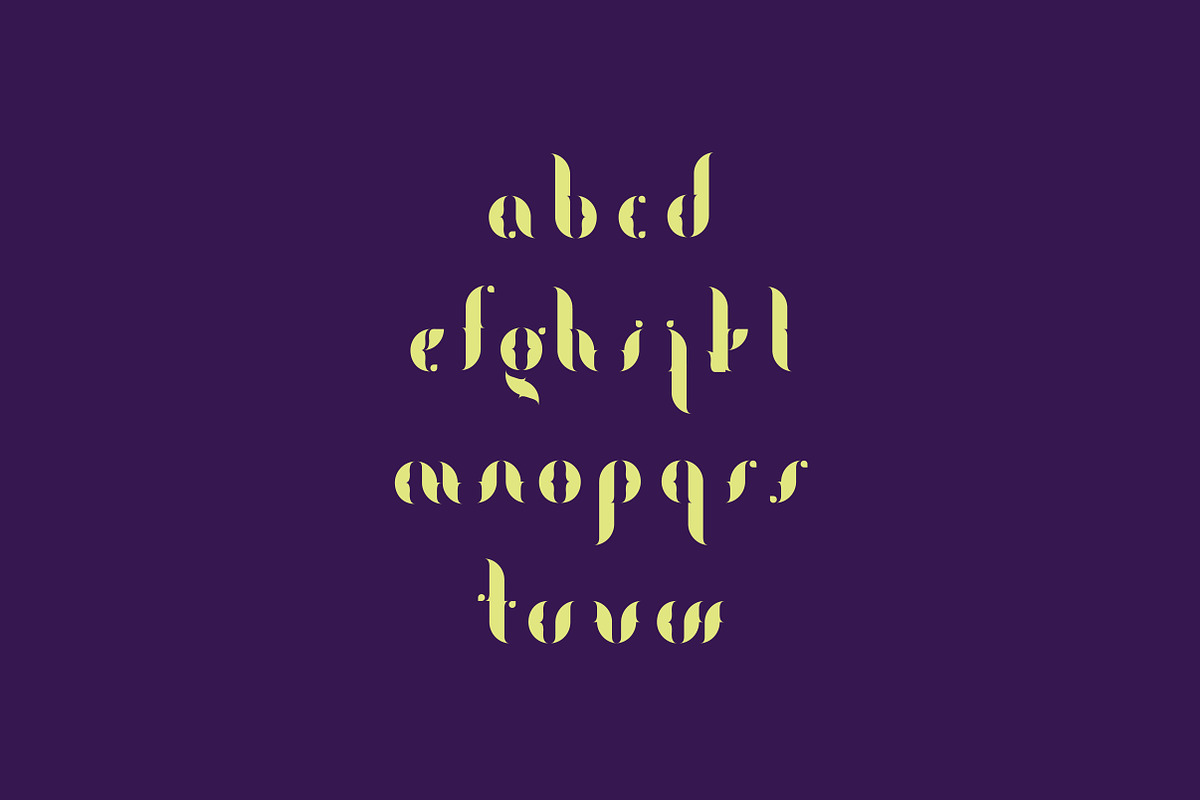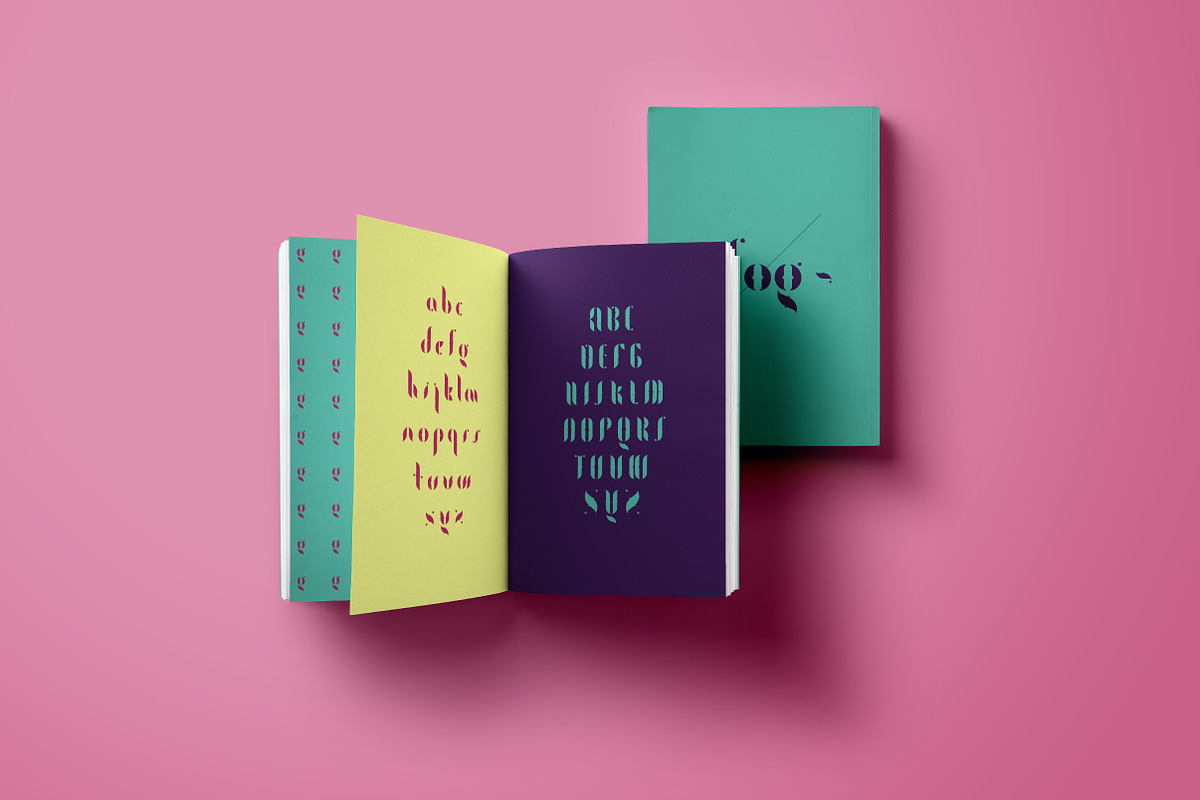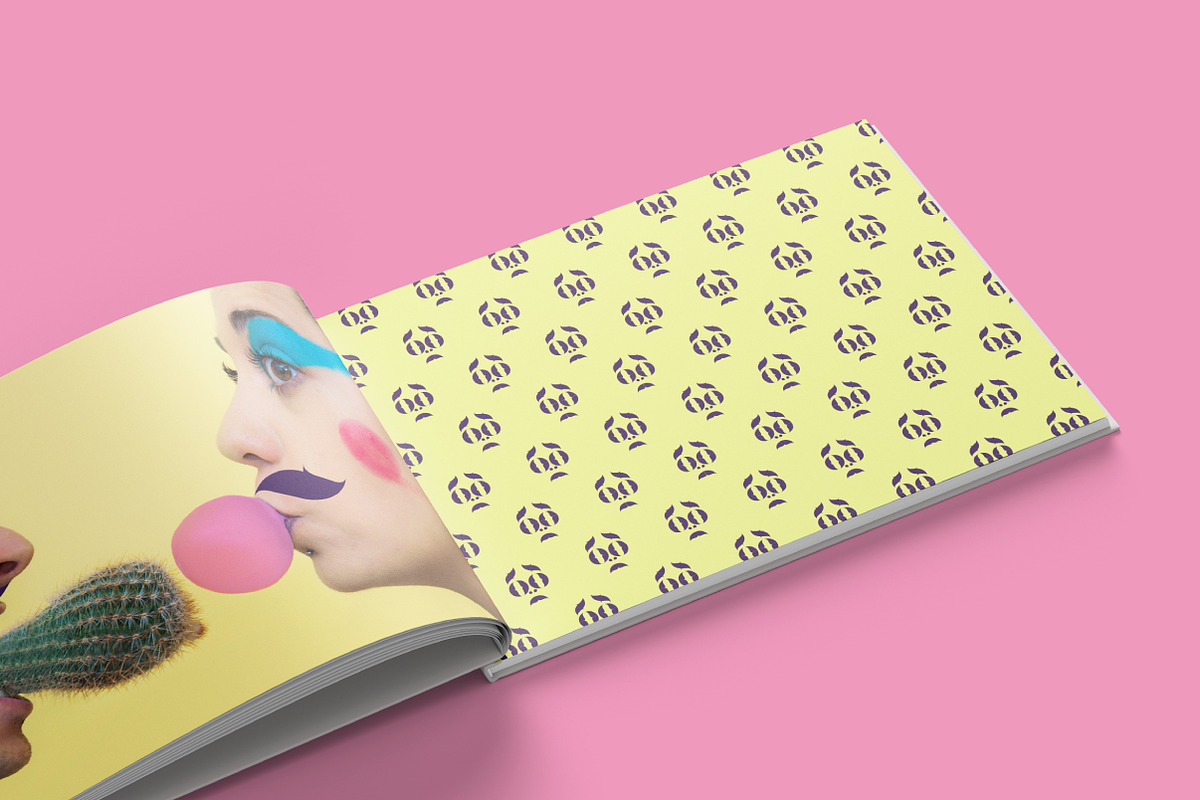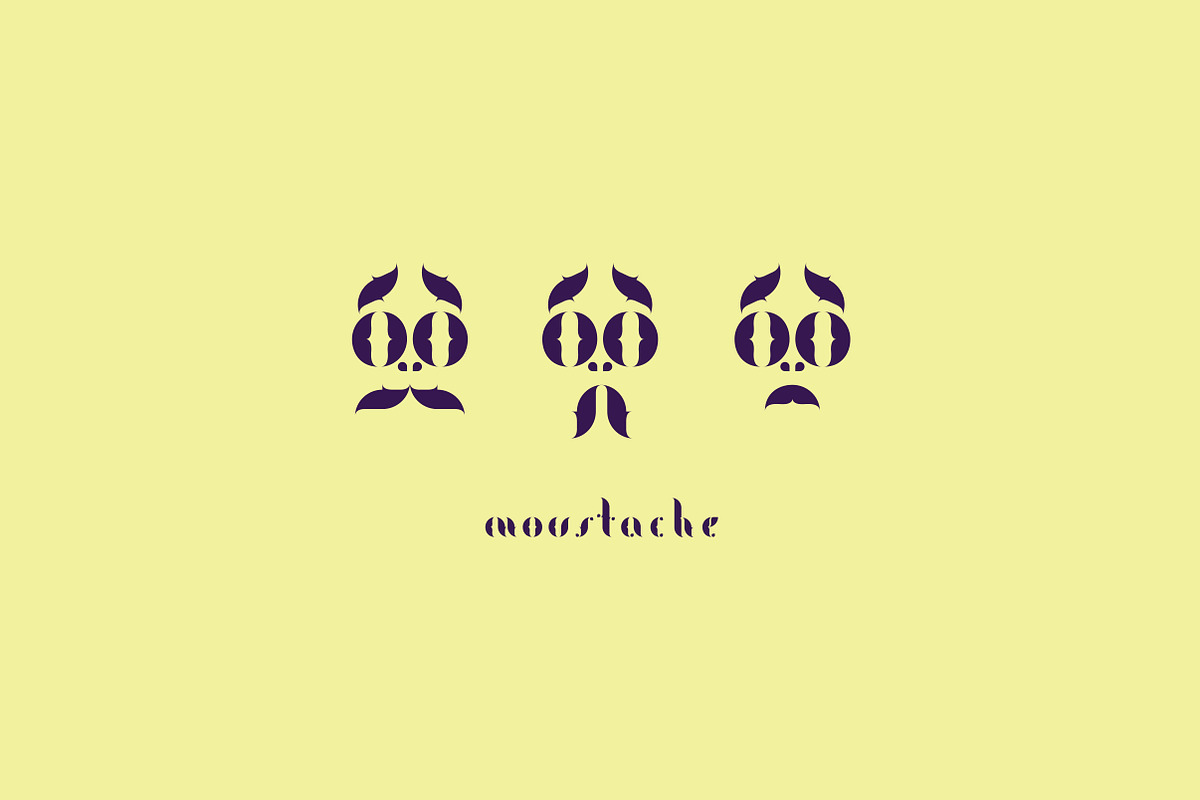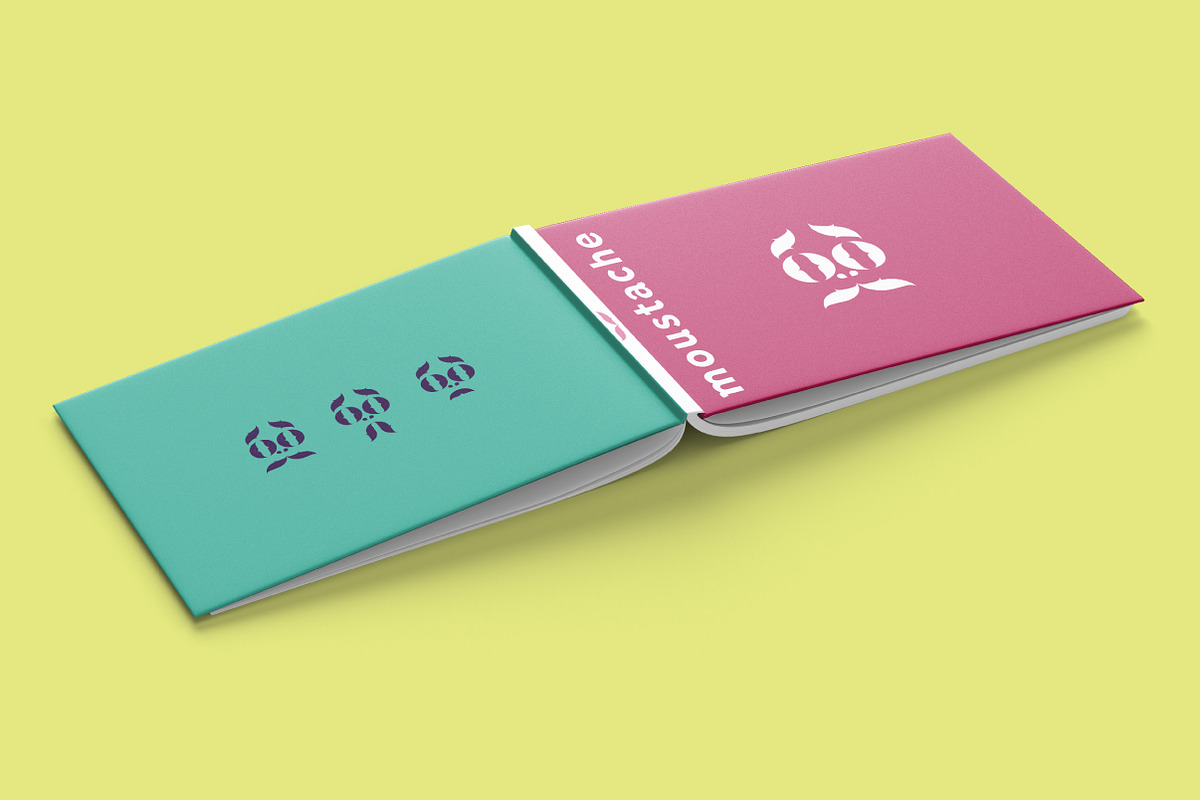
Fogtype display font
Fogtype is a modular typography created from basic and smart forms. Not only can be used as a typeface but by playing with its shapes you can construct endless patterns and illustrations. Fogtype has been published in several books around the world and for this occasion its presentation has been modified to fit the studio's style.